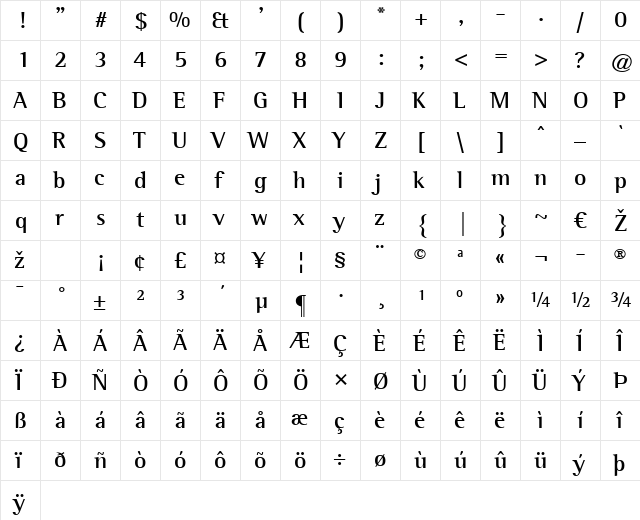
Agfa Rotis Semi Serif Bold
Design Context for Agfa Rotis Semi Serif Typeface
Agfa Rotis Semi Serif brings classic typographic sensibility to the table — its serifs and measured letterforms reflect centuries of print heritage. The heavy weight commands attention and anchors typographic hierarchies.
Pro Tip: Set Agfa Rotis Semi Serif with slightly loose tracking in headlines to let each letterform's detail read clearly at display sizes.